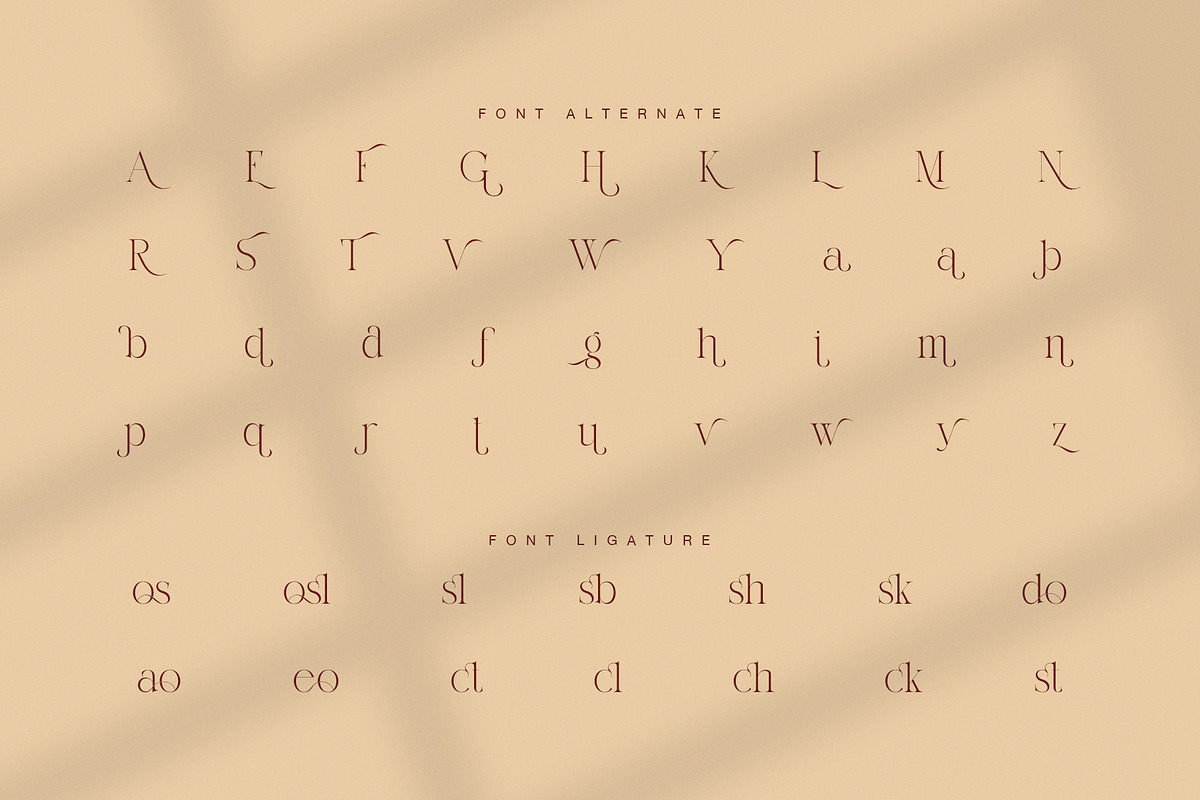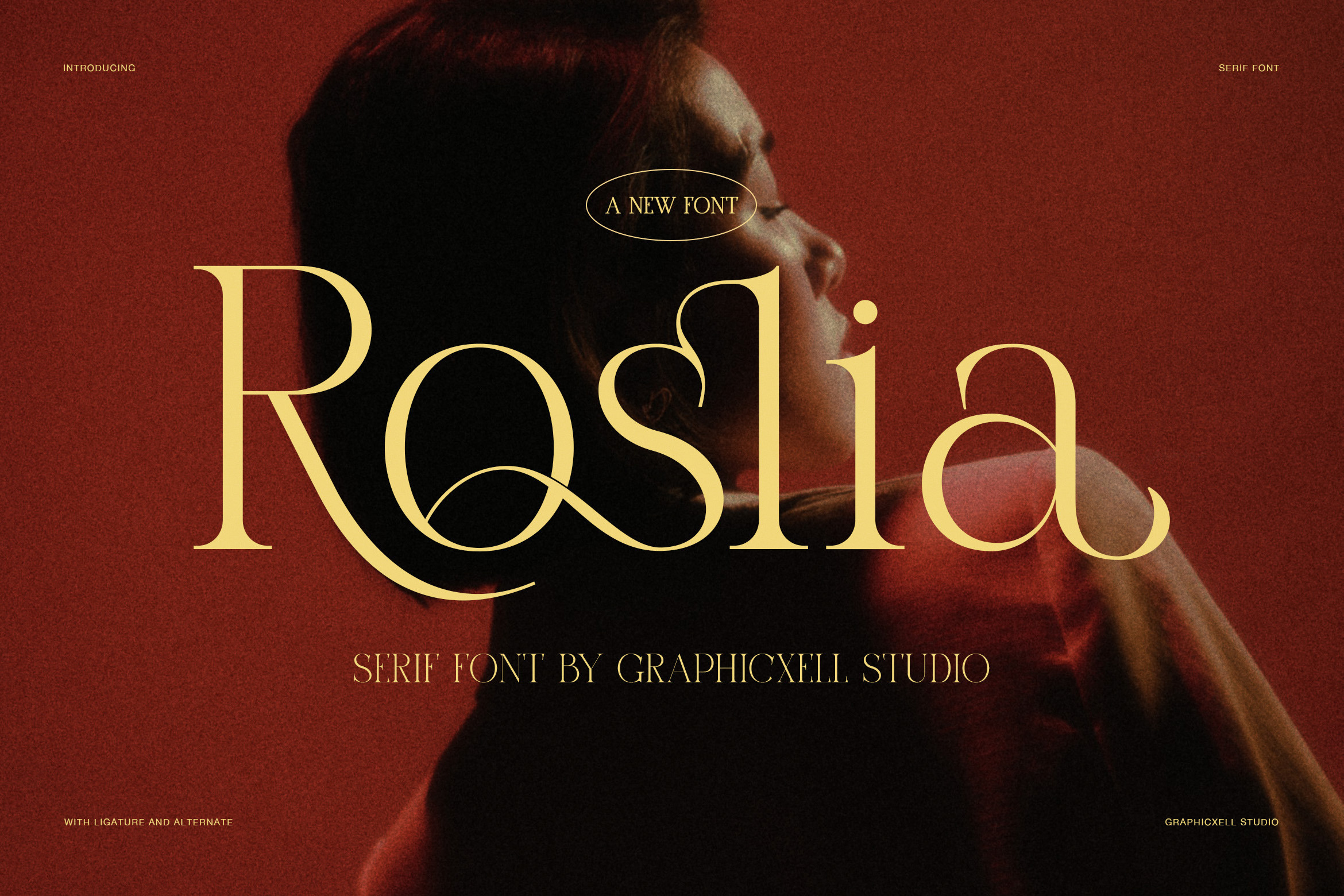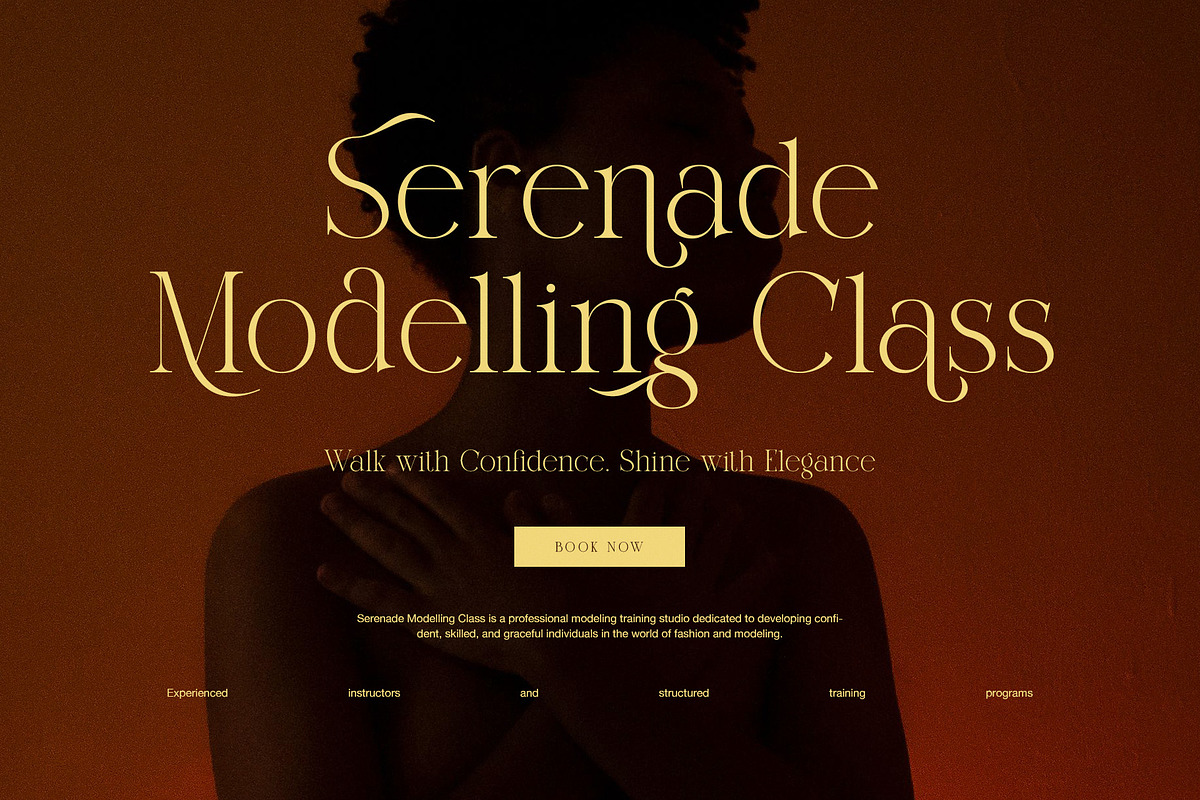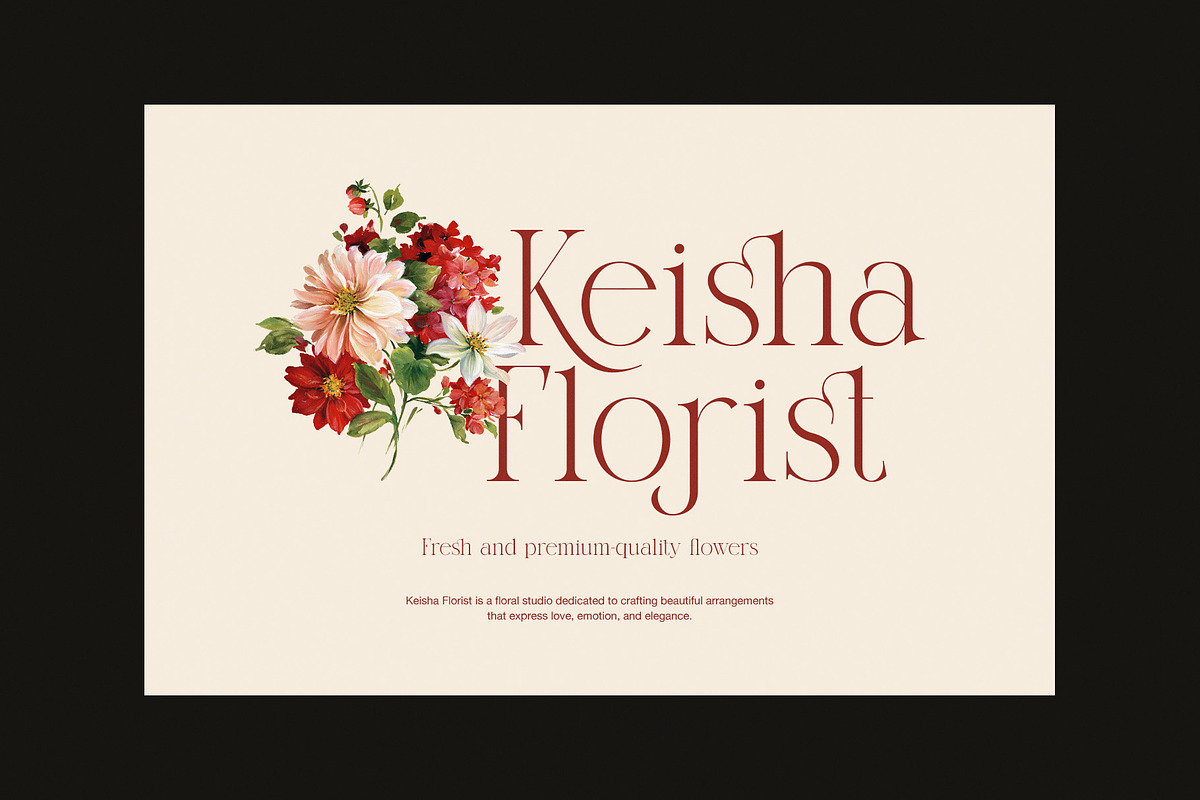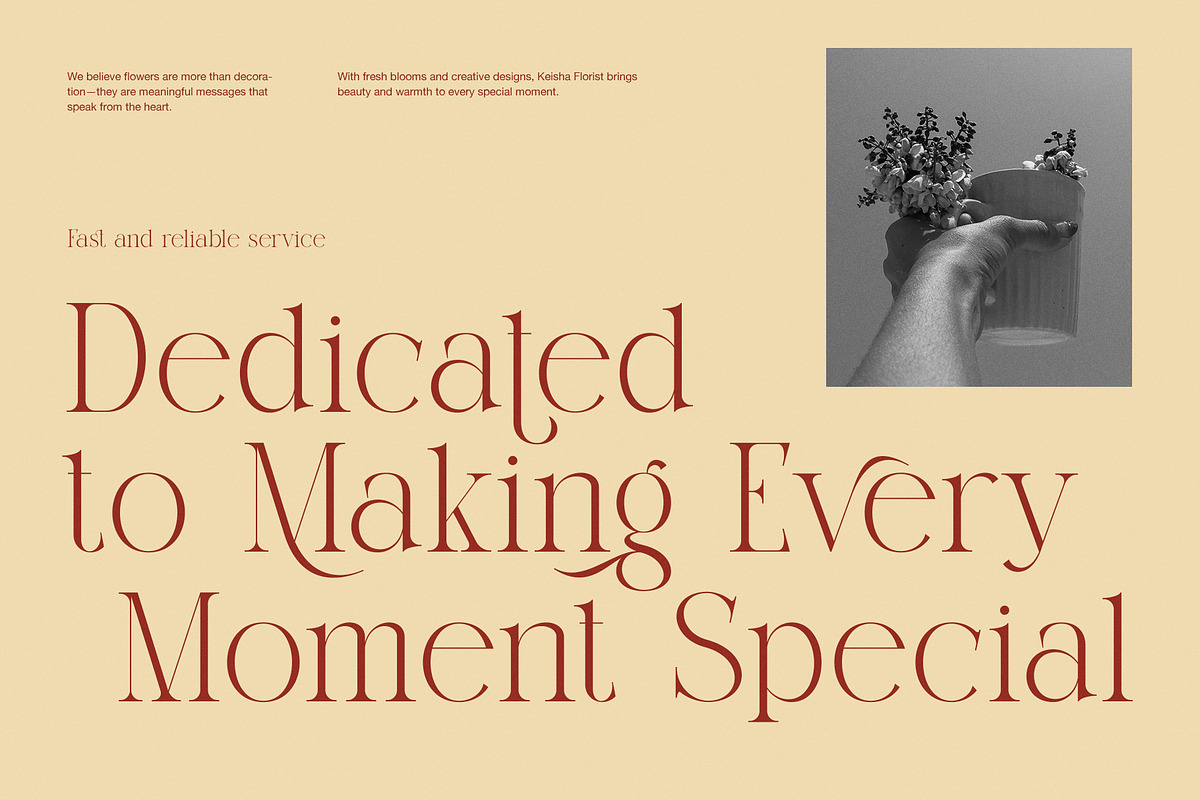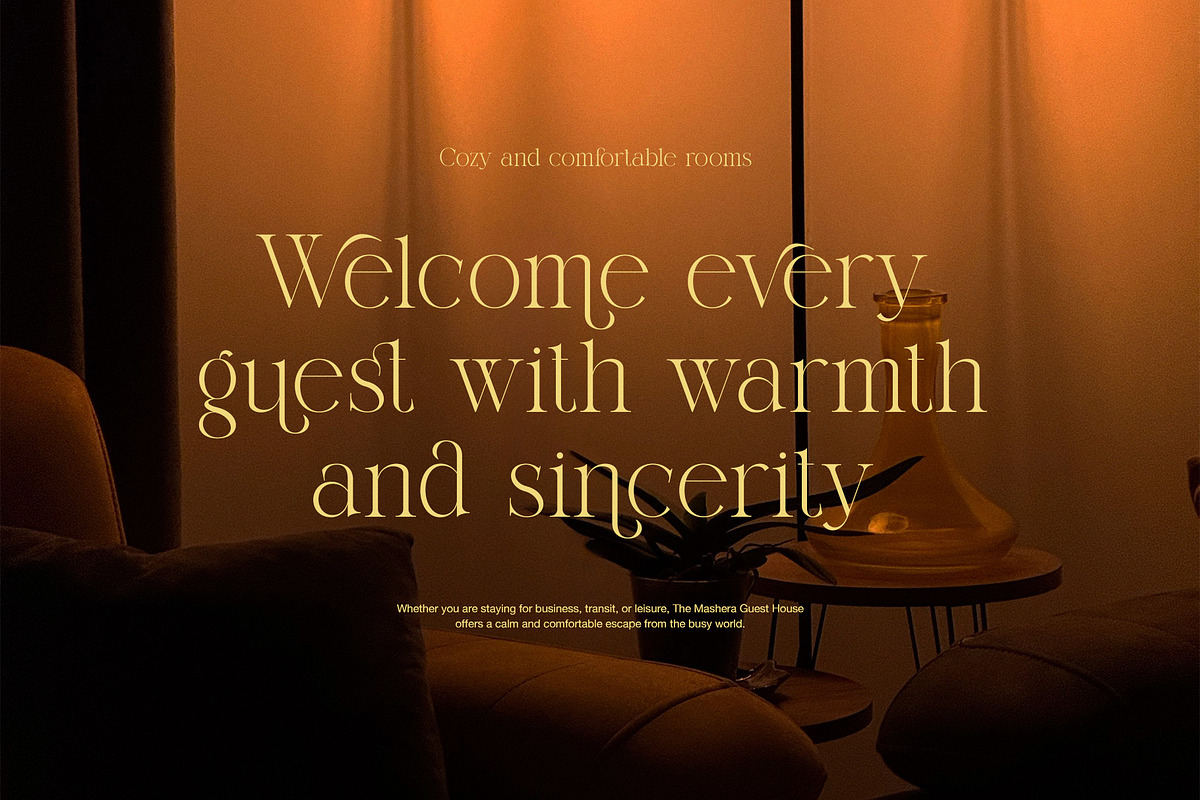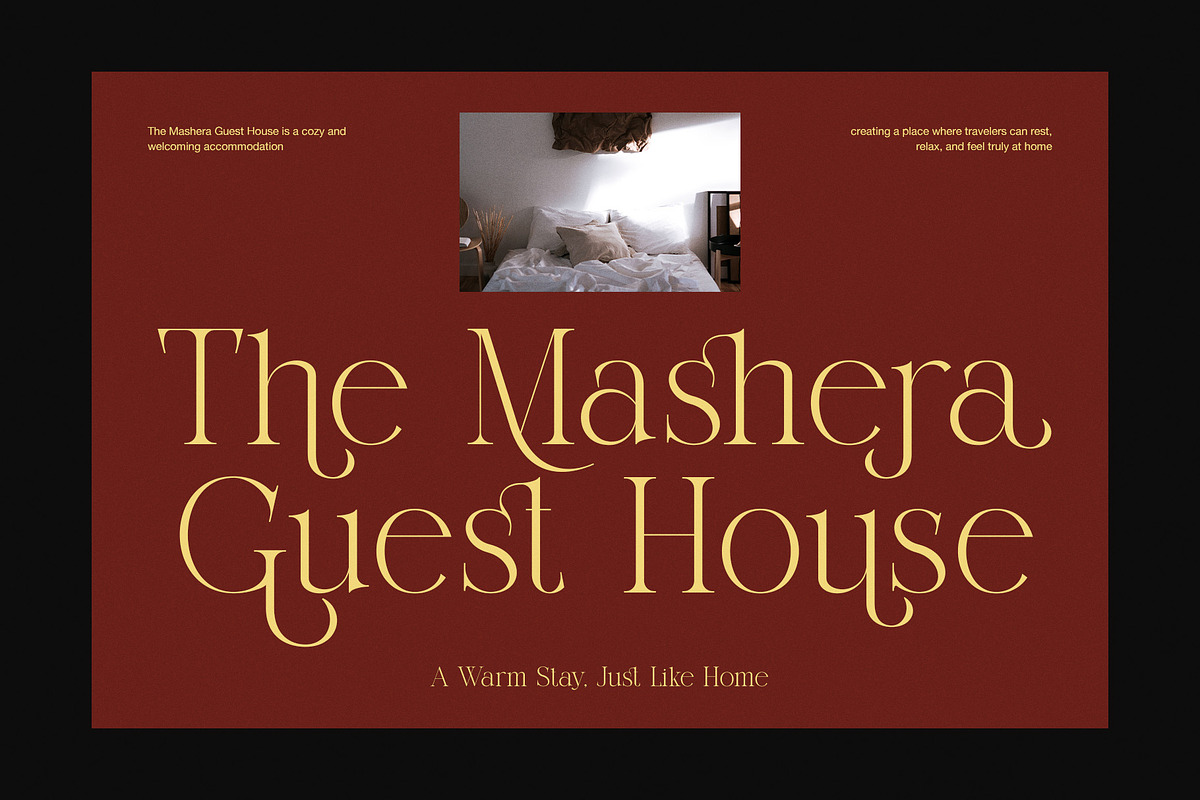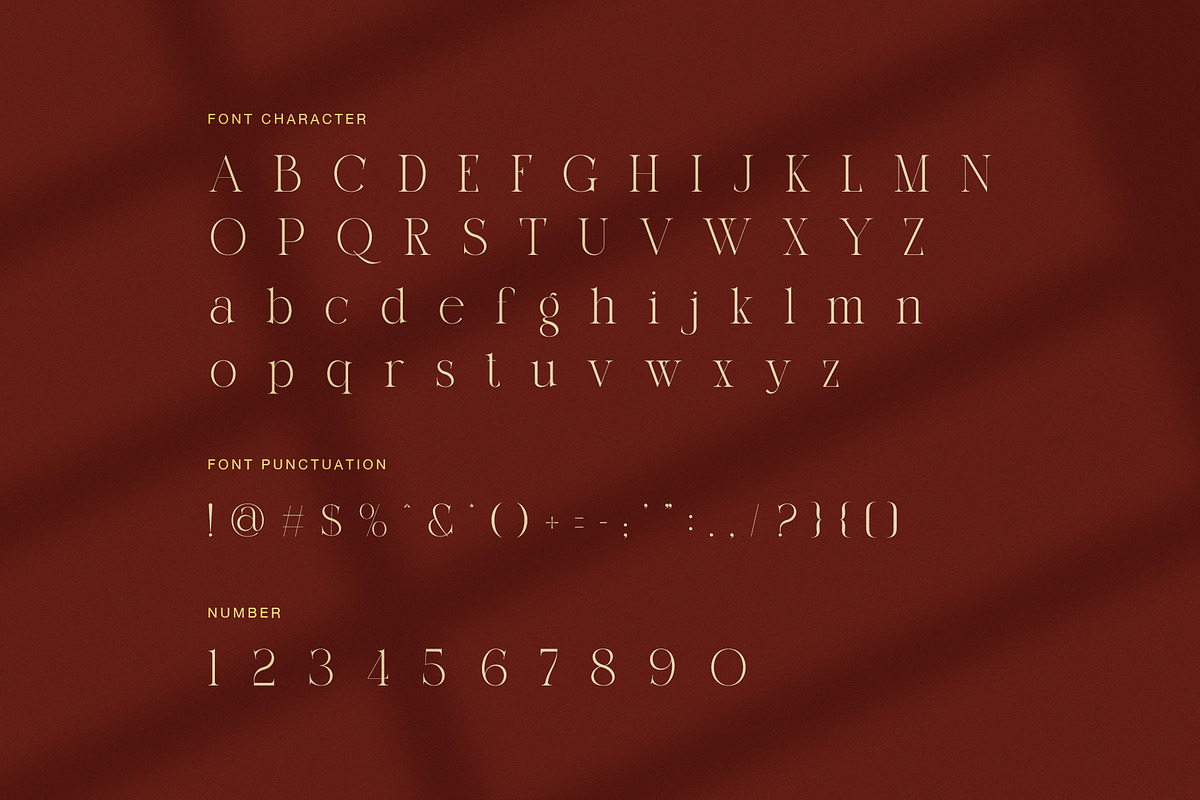
Roslia Elegant Ligature Serif Font
Roslia Elegant Ligature Serif Font is a luxury display typeface that combines refined serif letterforms with graceful ligatures and distinctive alternate characters. Designed for brands that value elegance and personality, Roslia delivers a sophisticated visual style inspired by fashion editorials, boutique branding, premium hospitality, floral studios, and timeless print design. Every curve has been carefully crafted to create typography that feels warm, expressive, and unforgettable.
Roslia stands out because of its artistic ligatures and decorative alternates. These details add movement and character while preserving excellent readability. As a result, every headline, logo, and brand identity gains a unique appearance that instantly attracts attention. Furthermore, the balanced contrast between thick and thin strokes creates a luxurious rhythm that feels modern yet timeless.
Whether you are designing for a boutique hotel, flower shop, fashion label, beauty brand, restaurant, café, wedding invitation, or lifestyle magazine, Roslia adapts naturally to many creative projects. Moreover, the elegant proportions allow large titles to feel dramatic without becoming overwhelming. Therefore, designers can create memorable branding that remains clean and professional across print and digital media.
Roslia also includes beautiful alternate characters that expand creative possibilities. Because of these stylistic options, every word can achieve a more customized and premium appearance. Meanwhile, the elegant ligatures produce smooth letter connections that enhance logos and display typography. In addition, the refined serif structure creates excellent harmony with minimalist layouts, warm color palettes, editorial photography, and luxury packaging.
Main Features
Elegant modern serif font
Beautiful ligatures and alternates
High-end display typography
Luxury branding style
Fashion-inspired letterforms
Perfect for premium logos
Ideal for hospitality branding
Great for floral and beauty brands
Suitable for wedding stationery
Clean editorial appearance
Balanced high-contrast strokes
Excellent for print and digital projects
Roslia is more than a serif font. Instead, it is a complete branding tool for designers who want to communicate elegance, warmth, and confidence. Consequently, every composition feels more refined, every headline gains visual impact, and every brand leaves a lasting impression. If you are searching for typography that blends classic beauty with modern creativity, Roslia offers a premium solution that works across many luxury design industries.